Handwritten Fonts for Logos in 2026 With 15 Stunning Styles
Handwritten Fonts for Logos give brand marks a personal, custom-made feel without relying on generic script styles. This collection is built for designers choosing fonts for logos, packaging, labels, wedding brands, boutique identities, and social media graphics.
Elegant Signature Handwritten Fonts for Logos
These refined scripts use flowing strokes, signature rhythm, and airy spacing, making them useful for premium wordmarks, wedding brands, fashion labels, and boutique identity systems.
Rotherdams Font
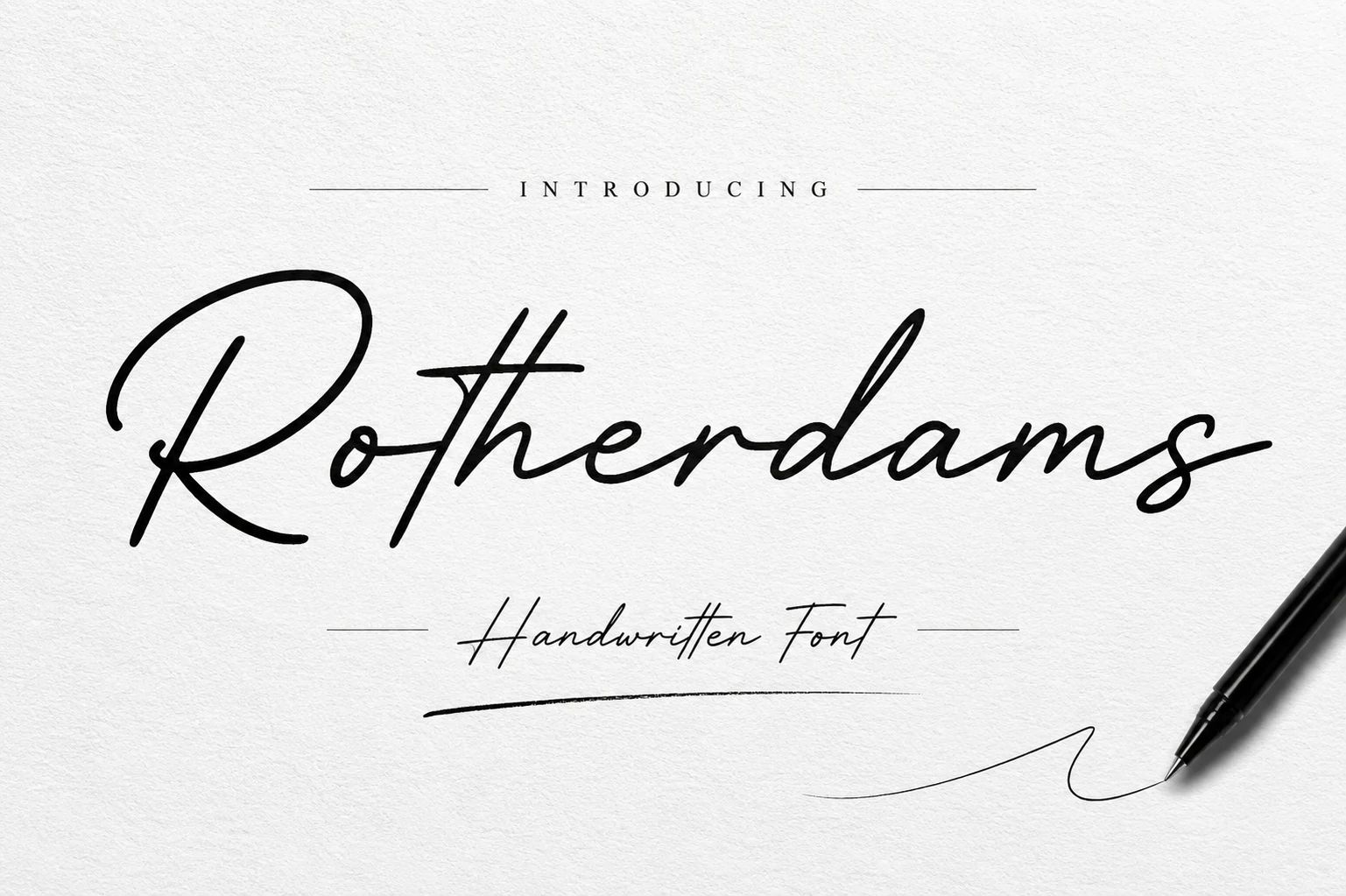
Rotherdams Font has a polished signature rhythm, led by a large sweeping capital, connected lowercase forms, and smooth pen-like strokes that taper into fine exits. Its long horizontal movement gives names and marks a personal, high-end tone without becoming overly decorative.
For Handwritten Fonts for Logos, this works best when the wordmark is short enough to let the loops and cross-strokes stay legible. Keep generous side spacing, avoid cramped secondary text, and pair it with a restrained sans or serif so the signature line remains the clear focal point.
Solivara Font
Best For: logos, branding, wedding designs, packaging
Solivara Font has a refined connected script structure, with a looping capital S, smooth downstrokes, and tapered exits that keep the wordmark fluid without looking overly ornate. Its rhythm feels elegant but still readable, thanks to open counters and balanced spacing between the joined lowercase forms.
For Handwritten Fonts for Logos, Solivara fits short brand names, signature marks, and wedding-focused layouts where the script needs to feel polished. Keep strong contrast behind the black strokes and use a quiet serif or simple sans beneath it so the sweeping curves stay dominant in the hierarchy.
Bigtimes Font
Best For: logos, branding, fashion branding, premium designs
Bigtimes Font has a confident signature rhythm, led by a wide looping capital B, gently slanted joins, and brush-textured strokes that taper cleanly at the ends. It feels polished rather than formal, with enough movement to give the lettering personality while keeping the word easy to read.
For designers exploring Handwritten Fonts for Logos, Bigtimes works especially well for short brand names, fashion marks, and packaging where the opening and ending strokes have room to breathe. Pair it with a restrained sans or serif, and keep supporting text compact so the script stays the focal line.
Marigold Boutique Font
Best For: logos, branding, invitations, fashion branding
Marigold Boutique Font has a relaxed, upscale script voice built from long rising strokes, open counters, and lightly uneven connections that keep it feeling handwritten rather than polished flat. The tall capitals and airy spacing give it a boutique character, while the smooth line quality keeps the wordforms clear.
For Handwritten Fonts for Logos, it works especially well on short names, invitation headings, and fashion-led branding where the letterforms can breathe. Try pairing it with a small uppercase sans for contrast, and avoid crowding it with dense supporting copy so the elegant rhythm and line breaks stay intentional.
Bold Brush & Vintage Handwritten Fonts for Logos
This group focuses on heavier brush scripts and sign-painting styles that work well for badges, packaging, headlines, retro marks, and logo designs that need stronger visual impact.
Inkflow Font
Best For: logos, branding, product labels, social media graphics
Inkflow Font is built from dense brush strokes, tall upright forms, blunt terminals, and uneven ink edges that give the word a handmade pull. The heavy black weight creates immediate impact, while the rounded counters in letters like o and w keep the script from collapsing into a solid mark.
For Handwritten Fonts for Logos, it suits short names, punchy labels, and brand marks that need a rawer handwritten voice. Use strong contrast behind it, keep tracking natural rather than tight, and avoid long phrases where the thick verticals and irregular stroke edges can start to crowd the rhythm.
Auckland Script Font
Best For: logos, branding, signage, quotes
Auckland Script Font has a strong sign-painting feel, with heavy connected strokes, a sweeping capital A, and an extended underline that turns the word into a compact logo mark. The slanted rhythm and thick downstrokes give it a confident vintage tone without making the letter shapes hard to follow.
For Handwritten Fonts for Logos, Auckland works best on short names, badges, and quote graphics where its bold script can sit as the main visual element. Use high contrast, avoid crowding the underline with secondary text, and keep smaller copy more neutral so the script’s movement stays controlled.
For Handwritten Fonts for Logos, Woonder is best for clean brand marks, invitation headings, and boutique packaging where a gentle handwritten voice is needed. Use it with generous spacing and a simple serif or sans so the thin lines stay clear.
Conclusion
Choose elegant signature scripts for premium logos, bold brush styles for vintage marks, rounded lettering for playful packaging, and clean casual fonts when clarity matters most.